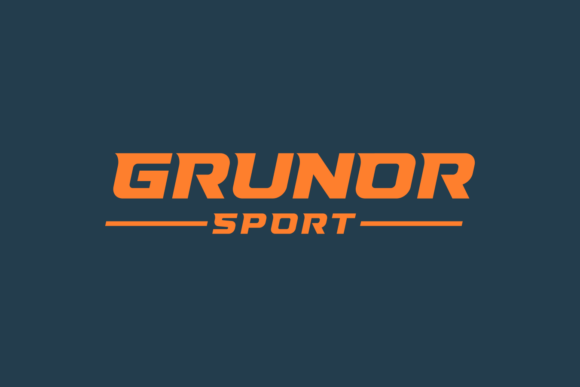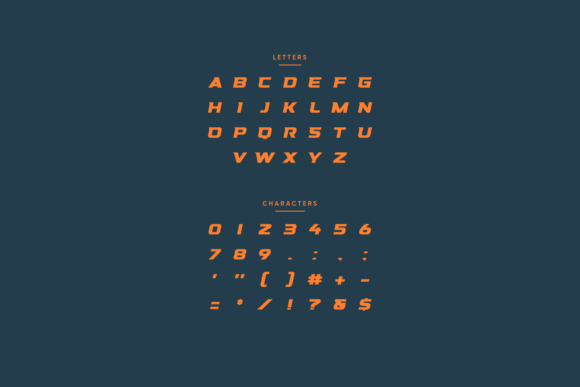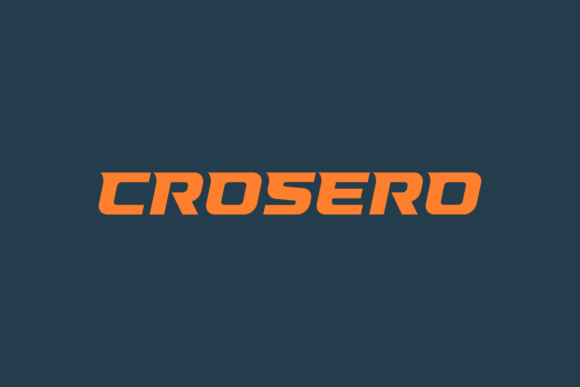
Introducing Cronor Font: The Ultimate Modern Display Font for Sports Branding and Bold Typography
In the world of design, typography plays a crucial role in conveying messages, creating visual identities, and making a lasting impression. For designers and crafters looking for a font that embodies modernity, boldness, and a fresh aesthetic, Cronor is the perfect solution. This modern display font is specifically built for sports branding, headlines, and more prominent typography needs, making it an excellent addition to any design project that requires a bold and contemporary look.
What is Cronor Font?
Cronor is a modern display font designed with a new and fresh all-caps style. Its unique design makes it perfect for adding a touch of modernity and boldness to any design project. Whether you’re working on sports, tech, action, or future-themed projects, Cronor is the ideal font to make your design more memorable and visually appealing.
Key Features of Cronor Font
- Modern and Fresh Design: Cronor boasts a modern and fresh all-caps style that will instantly elevate your design.
- Bold Action Style: This font is created for a bold action style, making it perfect for sports branding, headlines, and other prominent typography needs.
- Versatility: Cronor can be used for various design projects, including sports, tech, action, and future themes.
- Easy to Read: Despite its bold style, Cronor is easy to read, making it perfect for headlines, titles, and other display typography needs.
Why Choose Cronor Font?
- Unique Design: Cronor has a unique and fresh design that will make your project stand out from the crowd.
- High-Quality Typography: This font is designed with high-quality typography in mind, ensuring that your design looks professional and polished.
- Customizable: With Cronor, you can experiment with different colors, sizes, and styles to create a unique look that suits your design needs.
How to Use Cronor Font in Your Design Projects
- Sports Branding: Use Cronor to create bold and eye-catching sports branding, including logos, jerseys, and advertising materials.
- Headlines and Titles: Add Cronor to your headlines and titles to create a bold and modern look that grabs attention.
- Tech and Action Themes: Use Cronor to add a touch of modernity and boldness to your tech and action-themed design projects.
- Experiment with Colors and Styles: Don’t be afraid to experiment with different colors and styles to create a unique look that suits your design needs.
In conclusion, Cronor is a modern display font that is perfect for designers and crafters looking for a bold and fresh aesthetic. With its unique design, high-quality typography, and ease of use, Cronor is an excellent addition to any design project. Whether you’re working on sports branding, headlines, or other prominent typography needs, Cronor is the ultimate font to make your design more memorable and visually appealing.